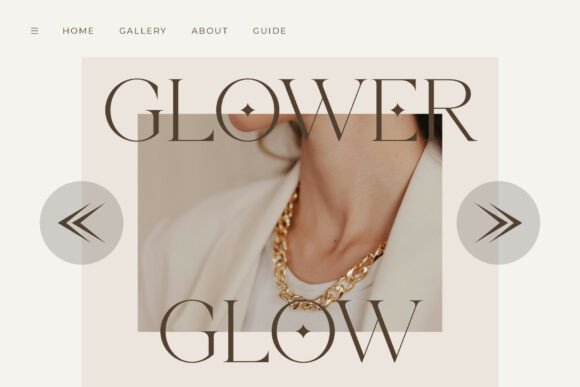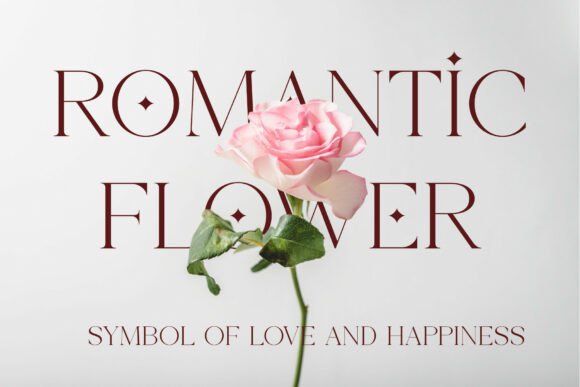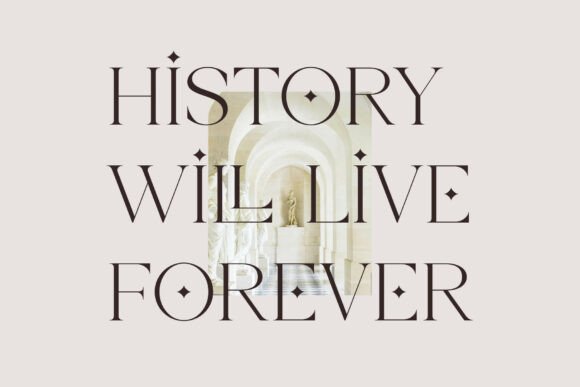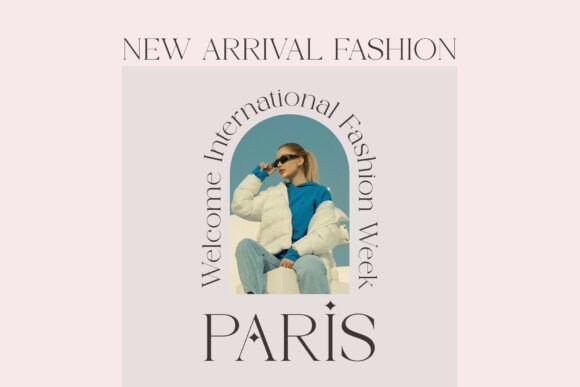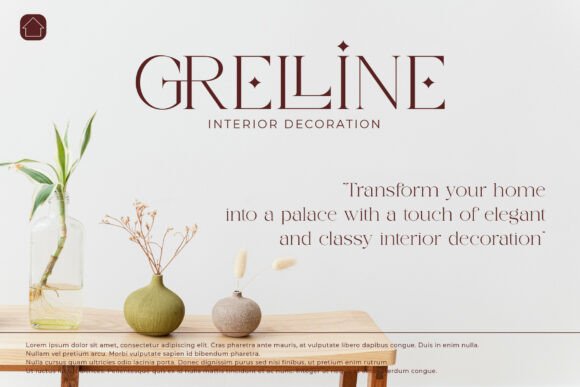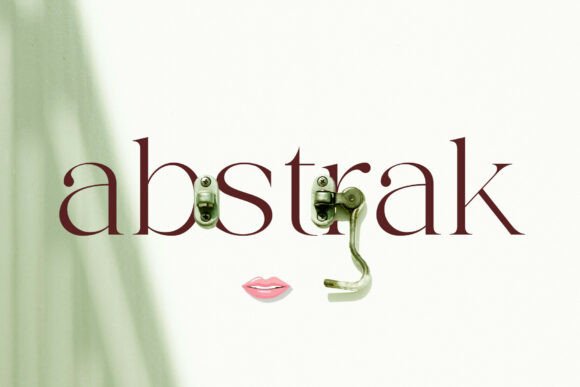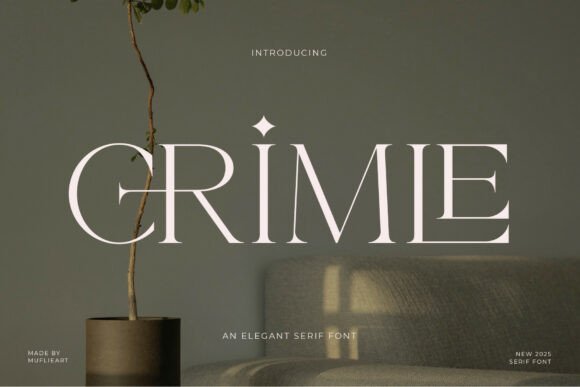
Introducing Crimie: The Epitome of Luxury Typography
In the realm of typography, few fonts manage to convey the essence of modern luxury as effectively as Crimie. This breathtakingly elegant serif font is a masterclass in high-contrast design, boasting razor-thin hairlines that are expertly paired with bold, authoritative stems. The result is a typeface that radiates an unmistakable sense of established prestige, making it the perfect choice for high-end boutique branding, luxury lifestyle magazine headers, avant-garde cosmetic packaging, and cinematic editorial layouts.
The Art of High-Contrast Design
Crimie’s design is rooted in the principles of high-contrast typography, a style characterized by the dramatic interplay between thick and thin lines. This approach creates a sense of visual tension that draws the eye and commands attention. The font’s razor-thin hairlines are meticulously crafted to provide a striking contrast to the bold, authoritative stems, imbuing the typeface with a sense of elegance and sophistication.
Unyielding Professional Power and Polished Artisanal Beauty
When it comes to luxury branding, the typography used can make all the difference in conveying a sense of professionalism and artisanal quality. Crimie delivers both in spades, providing a visual identity that is at once polished and powerful. Every word set in Crimie feels like a legendary statement of style, imbuing the viewer with a sense of confidence and refinement. Whether used for high-end boutique branding, luxury lifestyle magazine headers, or avant-garde cosmetic packaging, Crimie is the perfect choice for designers seeking to create a lasting impression.
Applications for Crimie
Crimie’s versatility makes it an excellent choice for a wide range of applications, including:
- High-end boutique branding: Crimie’s elegant, sophisticated design makes it the perfect choice for luxury boutiques seeking to establish a distinctive visual identity.
- Luxury lifestyle magazine headers: The font’s bold, authoritative stems and razor-thin hairlines make it an excellent choice for magazine headers seeking to convey a sense of refinement and sophistication.
- Avant-garde cosmetic packaging: Crimie’s unique blend of elegance and power makes it an excellent choice for cosmetic packaging seeking to stand out in a crowded market.
- Cinematic editorial layouts: The font’s dramatic contrast and sense of visual tension make it an excellent choice for editorial layouts seeking to create a lasting impression.
Why Choose Crimie?
So why choose Crimie over other luxury fonts? Here are just a few reasons:
- Unique blend of elegance and power: Crimie’s high-contrast design creates a sense of visual tension that draws the eye and commands attention.
- Versatility: Crimie can be used for a wide range of applications, from high-end boutique branding to cinematic editorial layouts.
- Established prestige: The font’s bold, authoritative stems and razor-thin hairlines radiate an unmistakable sense of established prestige, making it perfect for luxury branding.
In conclusion, Crimie is a truly exceptional font that embodies the essence of modern luxury. Its high-contrast design, elegant serif lines, and bold, authoritative stems make it the perfect choice for designers seeking to create a lasting impression. Whether used for high-end boutique branding, luxury lifestyle magazine headers, avant-garde cosmetic packaging, or cinematic editorial layouts, Crimie is sure to deliver a sense of unyielding professional power and polished artisanal beauty to your visual identity.